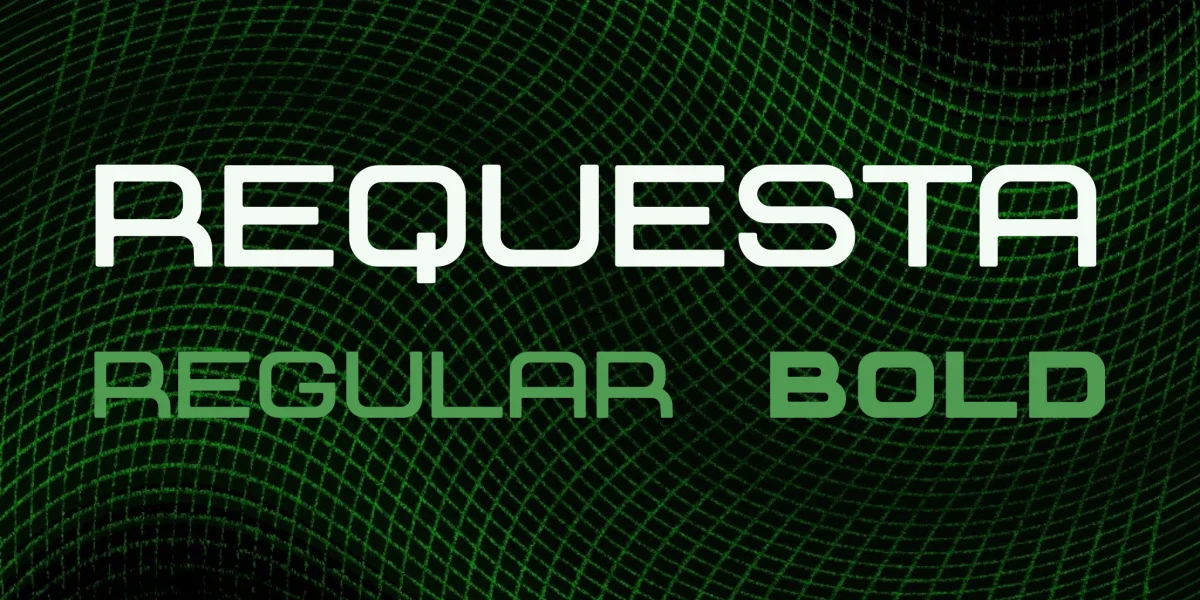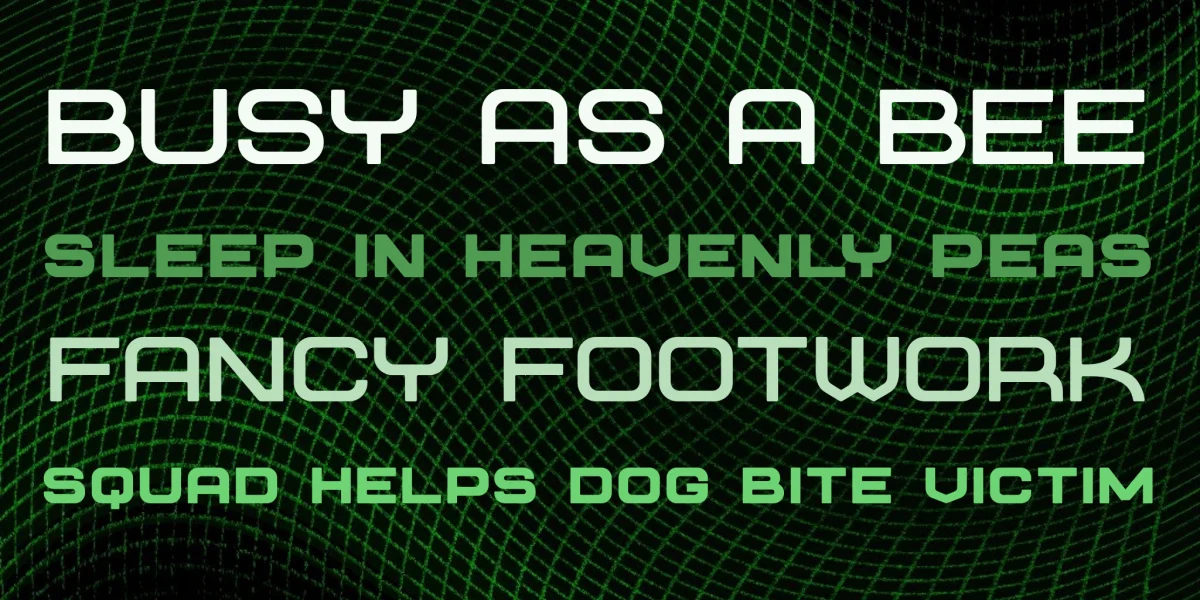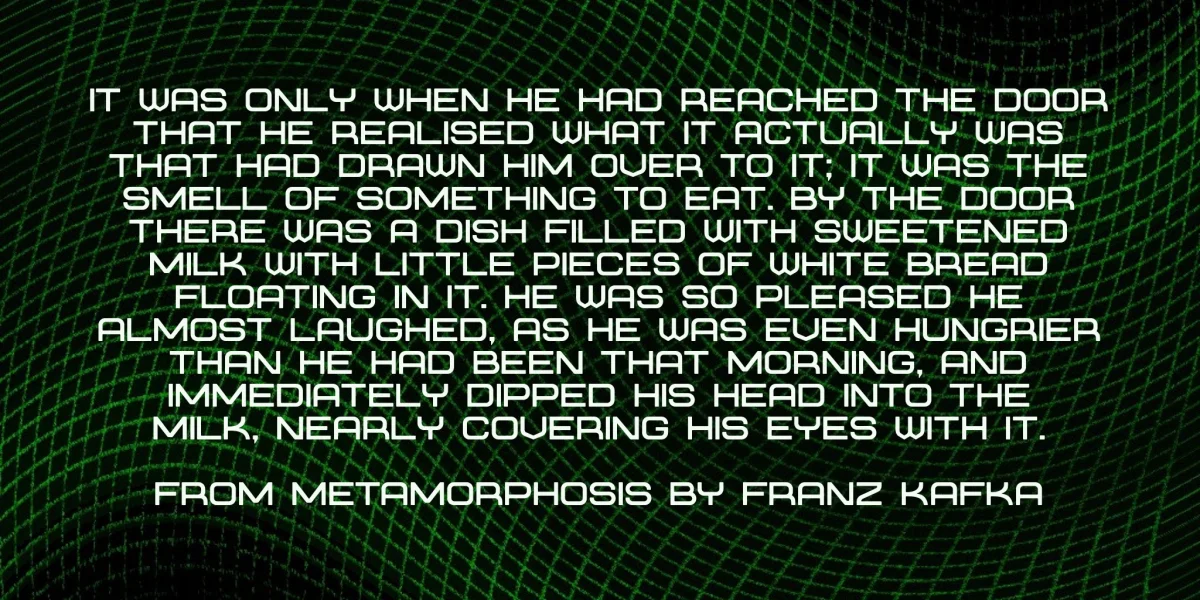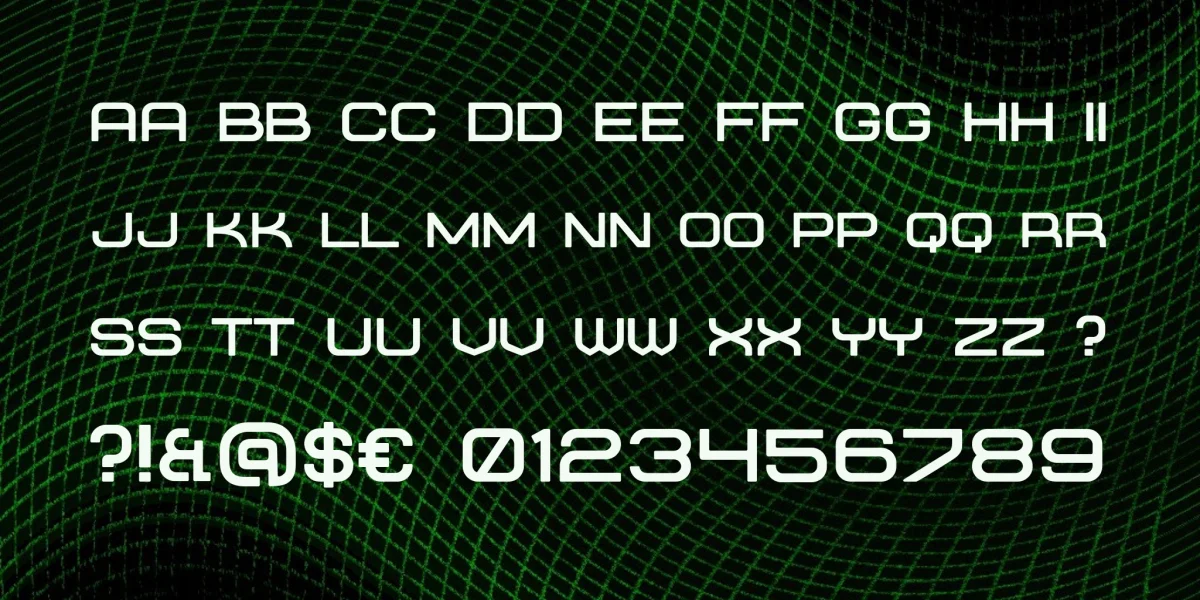
I created this font as a throwback to the old sci-fi movies of 70's and 80's trying to emulate their use of typography. You are free to use this for personal purposes.